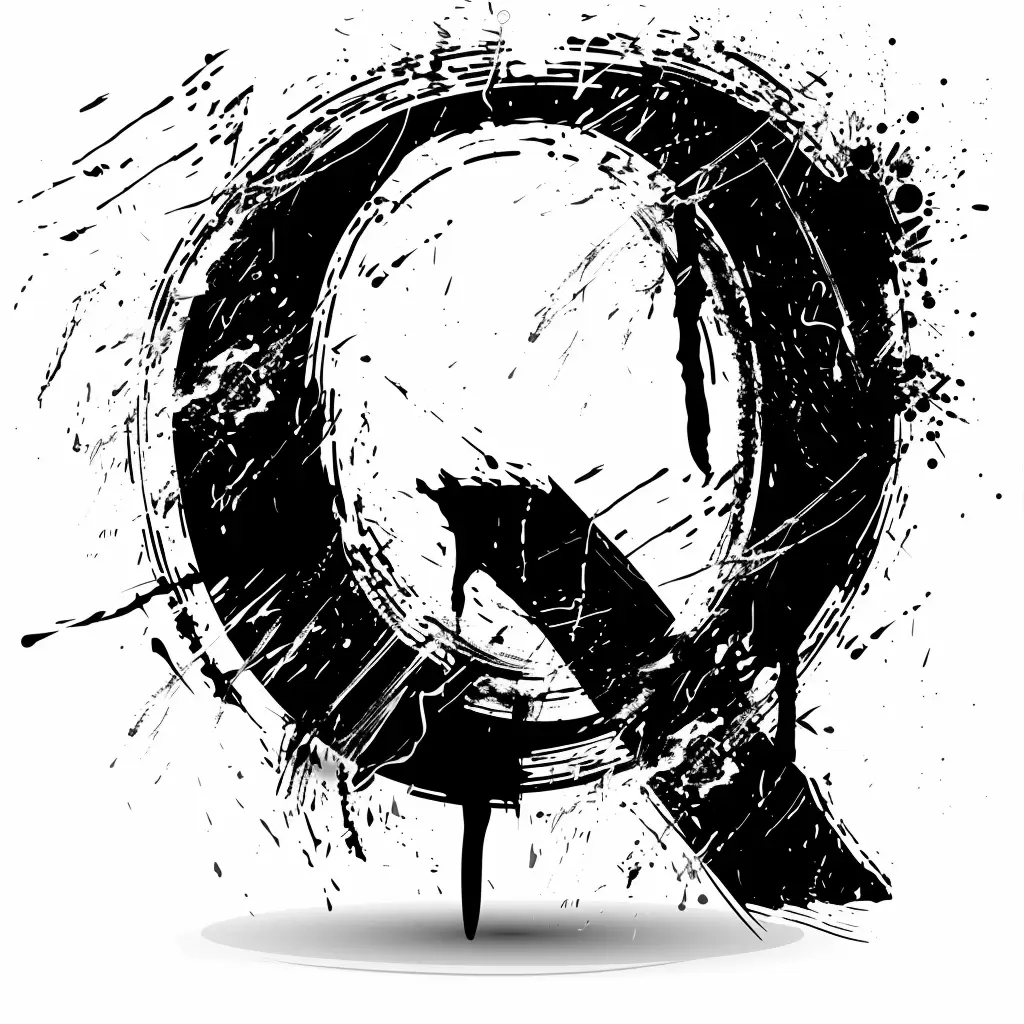
This image features a stylized, grunge-inspired letter "Q" rendered in bold black and white. The design incorporates rough, textured brushstrokes, splatters, and drips, creating a dynamic, artistic effect against a light gray background. The circular form of the "Q" is emphasized by the chaotic, expressive lines and contrasting dark and light areas, giving it a raw, hand-painted aesthetic.